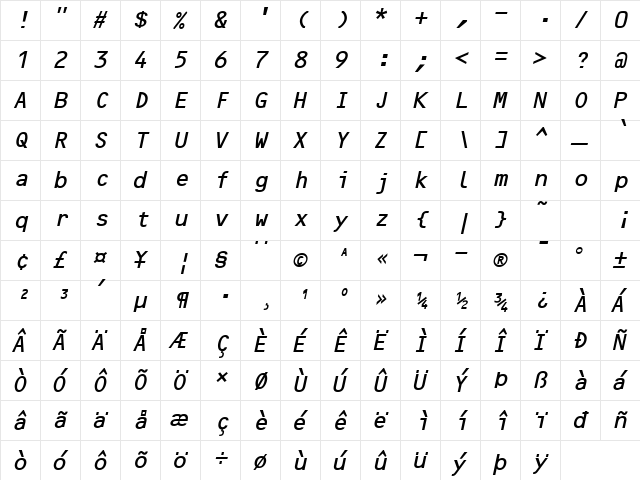
Optical B Italic
Design Context for Optical B Typeface
Optical B offers clean, dependable letterforms without strong stylistic allegiance, making it a practical choice for designers who need flexibility. The slanted form adds forward momentum and visual energy.